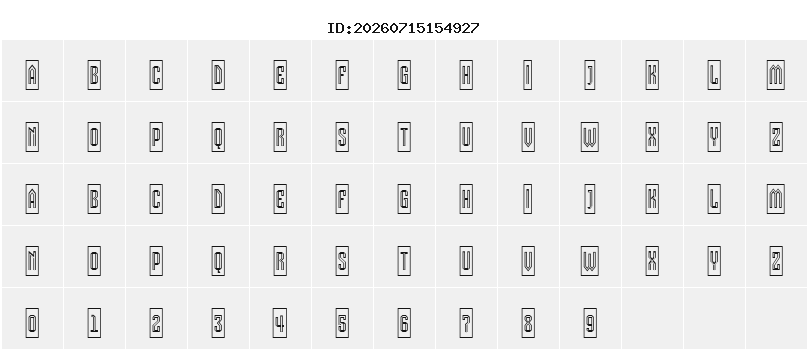
a_VizoraCmOtl Preview
• Font Name: a_VizoraCmOtl
• Font ID: ArsenalCompany: a_VizoraCameoOutline: 1999
• Full Font Name: a_VizoraCmOtl
• Version: Version 1.0; 1999; initial release
• PostScript Name: a_VizoraCmOtl
• Character Count: 299
• Designer: W.Chufarofsky & M.Slutsker
About a_VizoraCmOtl.ttf
a_VizoraCmOtl.ttf is a modern, elegant sans-serif font designed for ultimate readability and visual harmony. Perfect for branding, headlines, web design, and print materials.